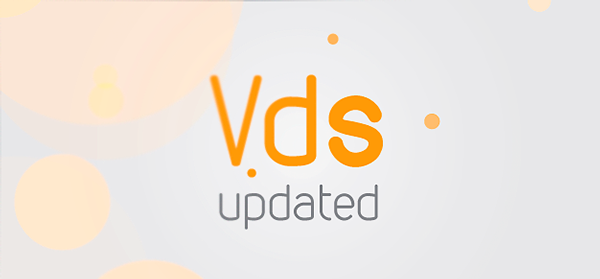
Download and enjoy this free vds font. Cool typeface to showcase your designs in a modern way. The Hungry JPEG has created this amazing and beautiful free font. Amaze your fellow designers and create stunning designs with this cool font.